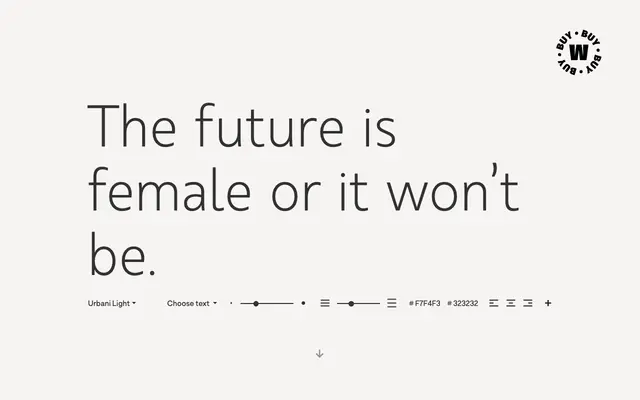
Urbani
W Type Foundry · Salvador Rodriguez
A sans-serif blending Neohumanist and Neogrotesque influences across nine weights, designed with reading comfort and alternate glyph flexibility in mind.
Designed by Salvador Rodriguez and inspired by Adrian Frutiger and Paul Renner, Urbani sits between humanist warmth and grotesque rationality. Its subtly narrow proportions, tall ascenders, generous counter-forms and ink traps are all oriented toward extended text setting in print and digital contexts. The family ships with 18 styles including full italic coverage, plus a broad OpenType feature set encompassing alternate glyphs, old-style figures, smallcaps and ligatures.
Described as a blend of Neohumanist and Neogrotesque influences, inspired by Frutiger and Renner, placing it at the intersection of humanist warmth and grotesque rationality.